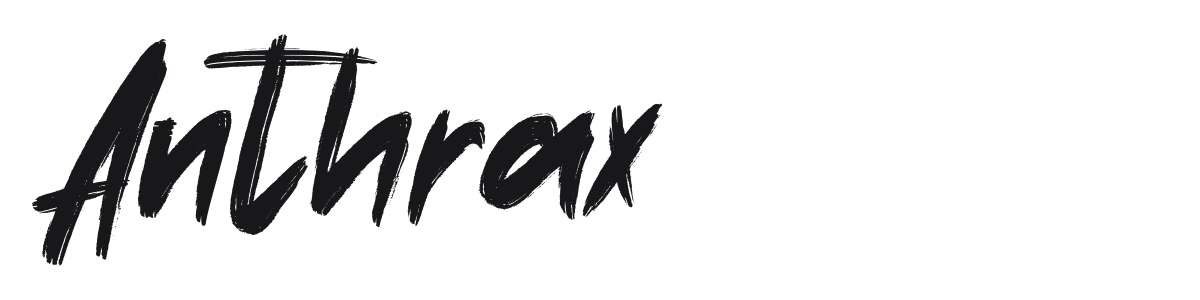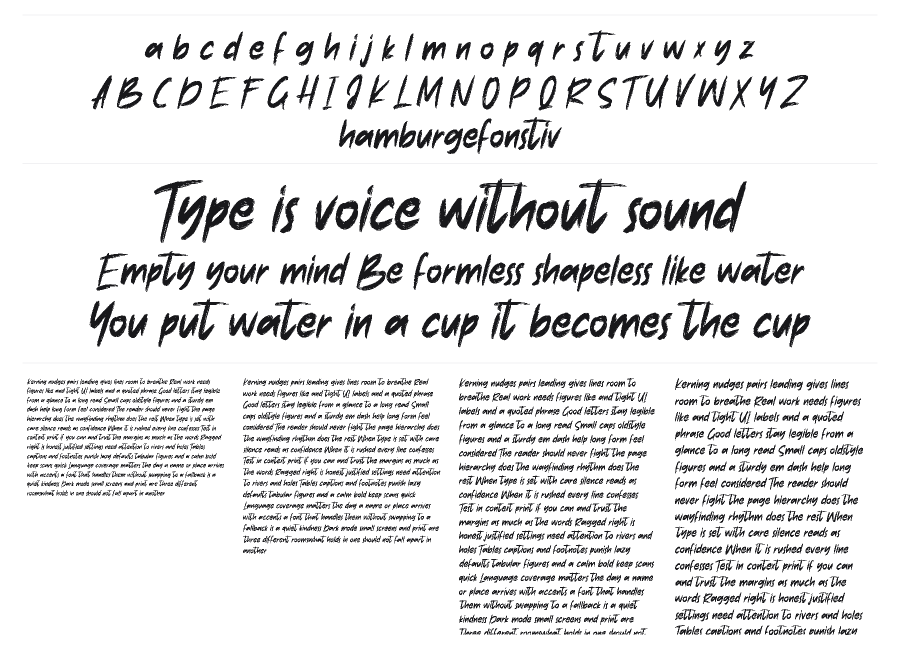
Anthrax
Anthrax is a rough brush script with heavy ink texture and a fast, aggressive hand. The bristle marks and ragged stroke edges give it an authentic handmade quality that digital scripts rarely achieve. It works best at large sizes where the gritty details can breathe.